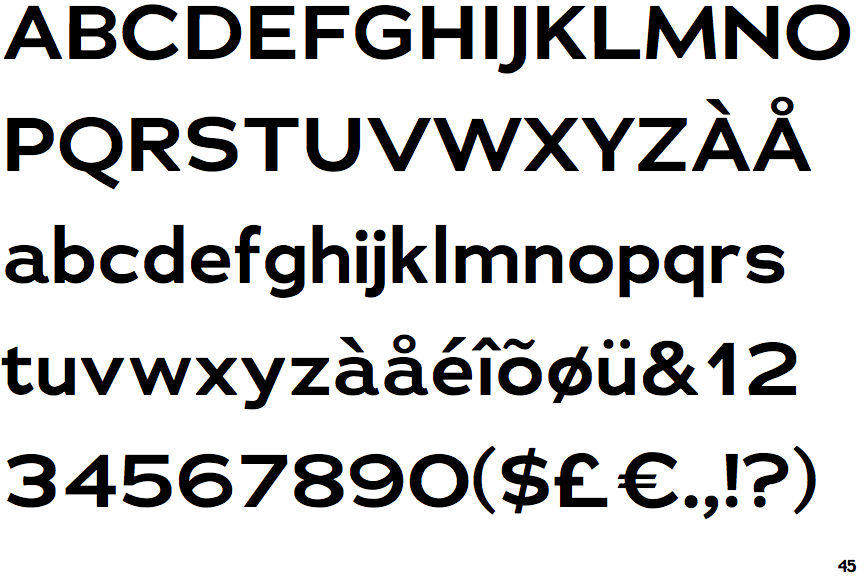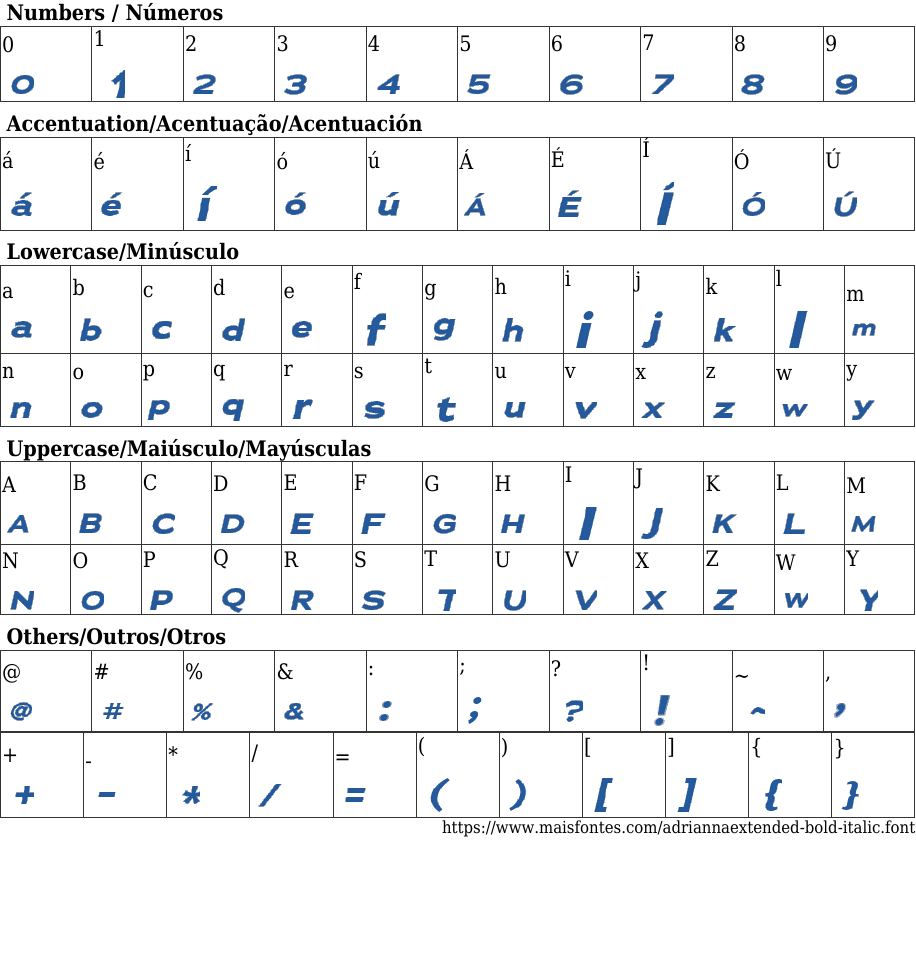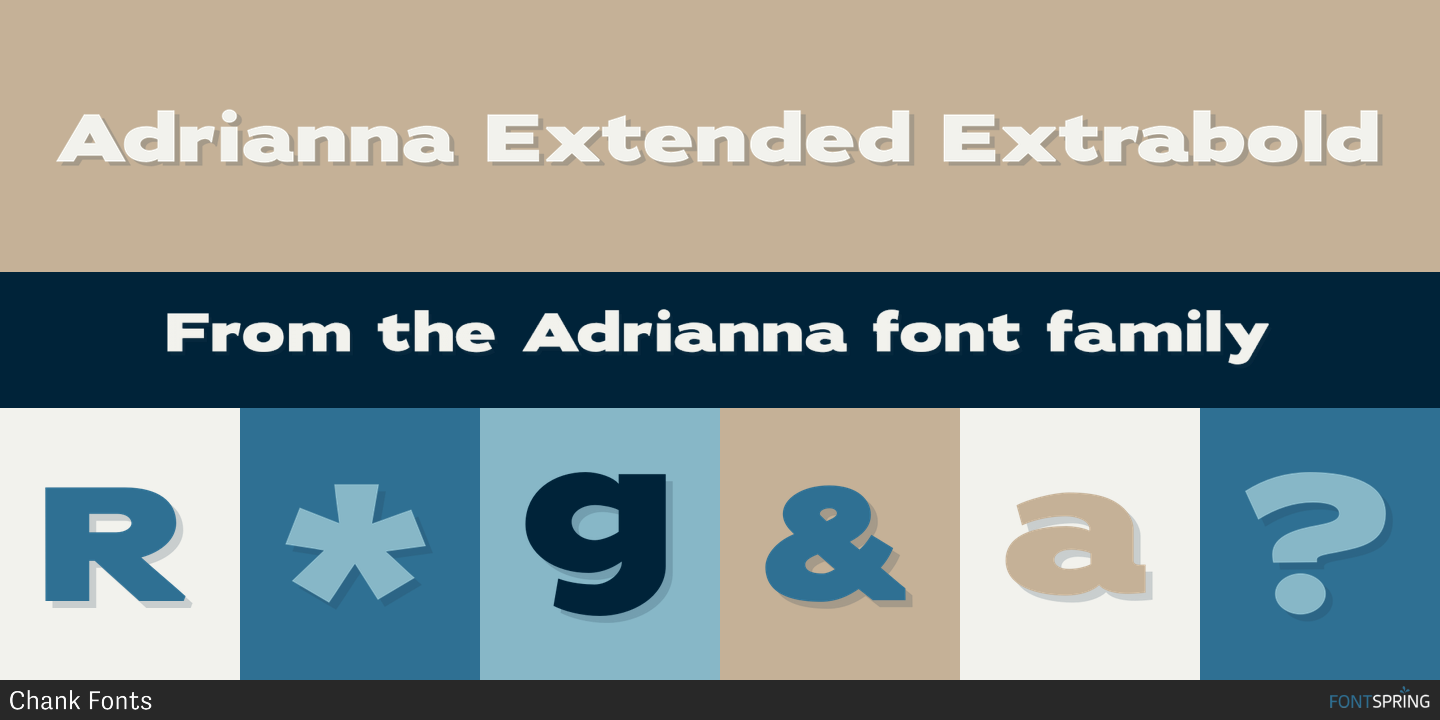
Adrianna Extended Font Free Download - Adrianna extended regular by adobe systems incorporated. Web adrianna sans serif font. Please note that this demo version of adrianna font is free for personal use only and no commercial use is allowed! Web download adrianna extended regular font. A great choice for highlighting your design.
Adrianna Extended Font Free Download - Web download adrianna extended regular font. Adrianna extended regular by adobe systems incorporated. Web adrianna extended regular is a sans serif font collection published by chank fonts. The font is available in all formats (adrianna woff2, adrianna woff, adrianna ttf, adrianna eot) and applicable to the website, photoshop and. A great choice for highlighting your design.
Adrianna Extended Font Free Download - Web download adrianna extended regular font. Web get to know the adrianna extended font family and download it for free to use in your project. Web adrianna sans serif font. Web explore adrianna designed by chank diesel at adobe fonts. The font is available in all formats (adrianna woff2, adrianna woff, adrianna ttf, adrianna eot) and applicable to the website,.